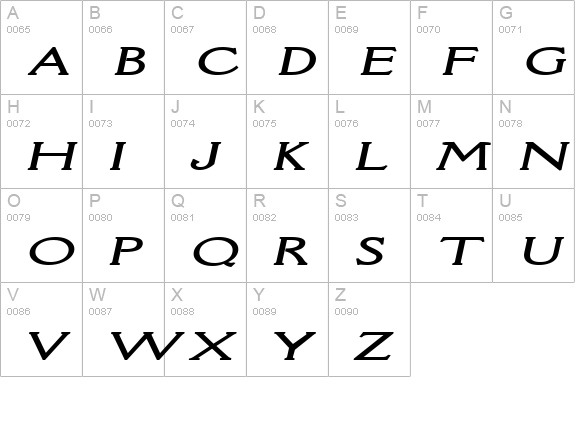
Rory Extended BoldItalic is a distinctive, extended-width variant in the Rory typeface family \xE2\x80\x94 well suited to design and typography projects.
Rory Extended BoldItalic font is a versatile and modern typeface that exudes sophistication and elegance. With its bold yet elegant design, this font is perfect for making a statement in your designs. The sleek italicized style adds a touch of flair and personality, making it ideal for projects that require a bold and modern look. Best of all, Rory Extended BoldItalic font is available for free download at FontsMarket.com. Whether you're working on a branding project, a website design, or any other creative endeavor, this font is sure to elevate your work and make a lasting impression. Don't miss out on the opportunity to use this stunning font in your projects - download Rory Extended BoldItalic font today and take your designs to the next level.